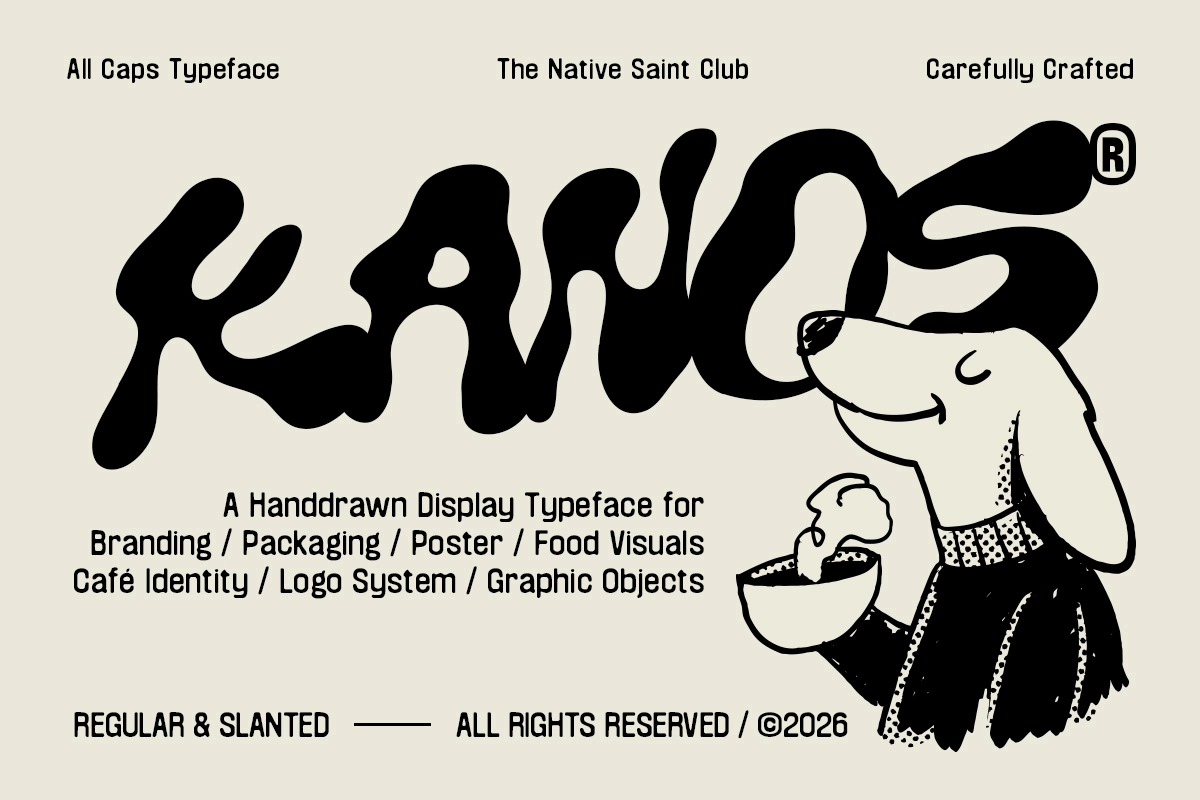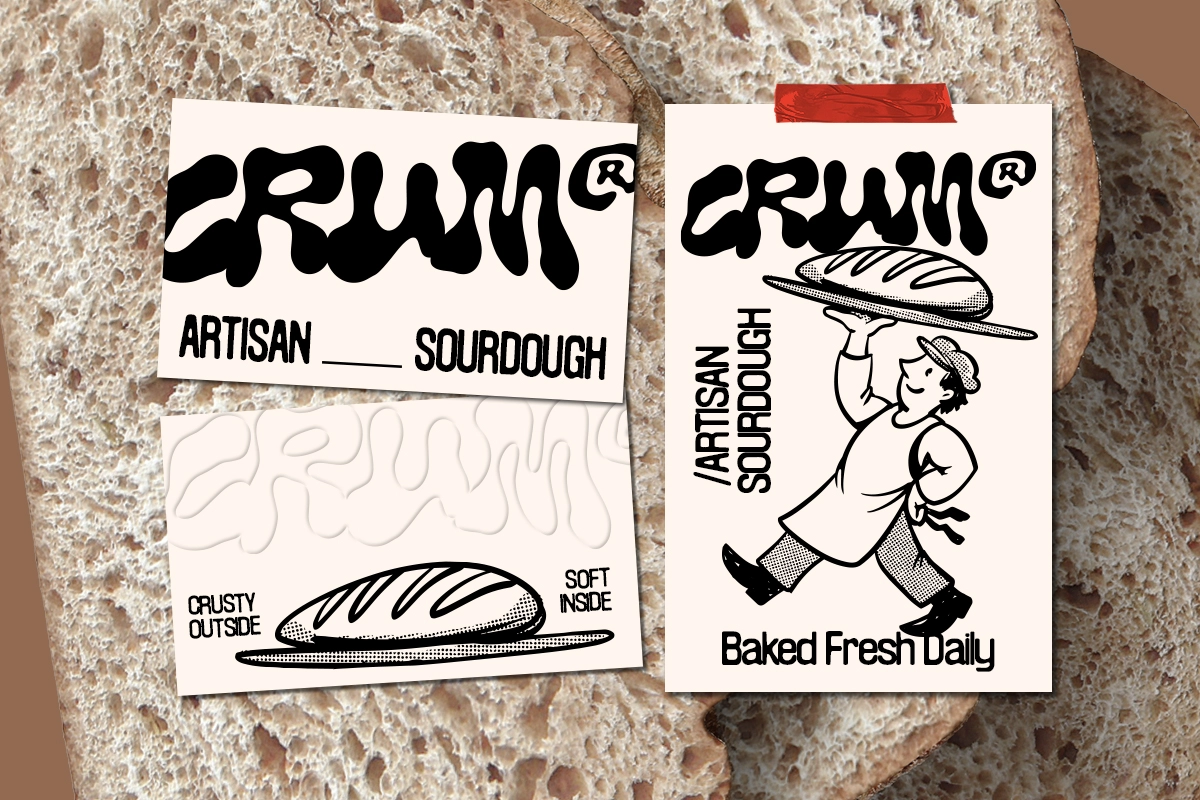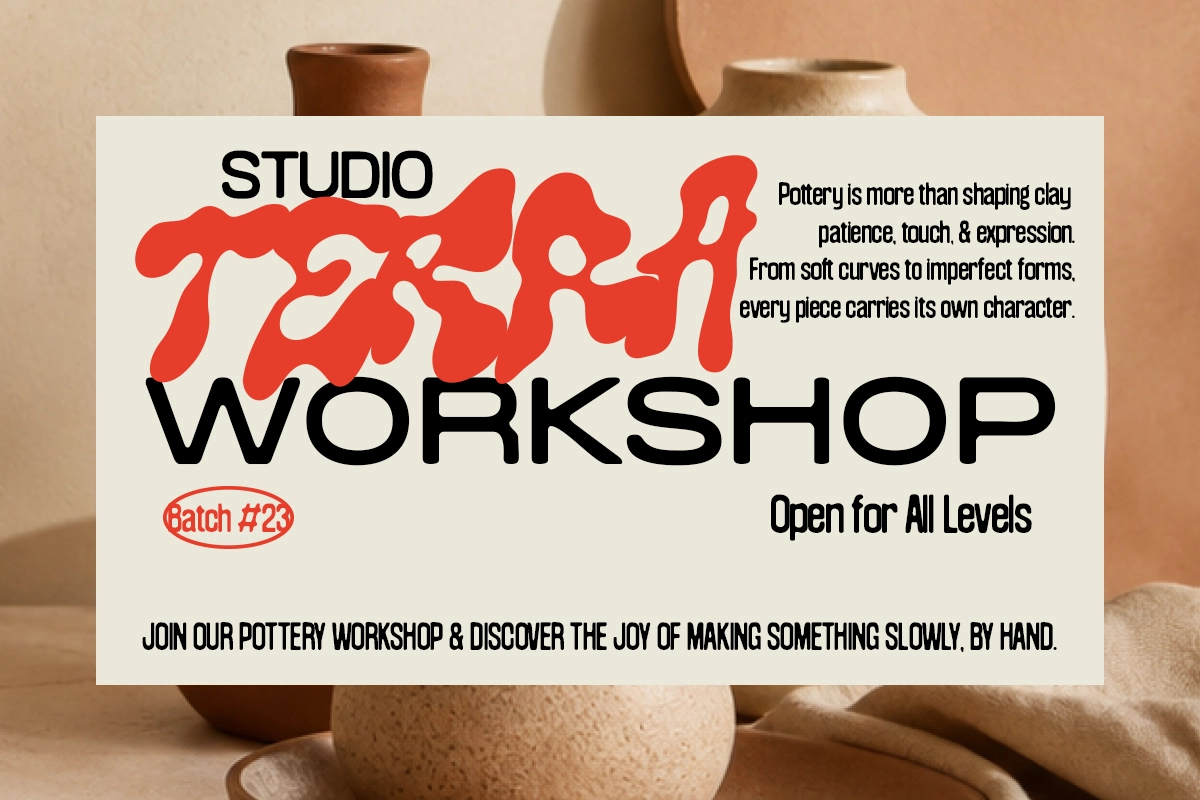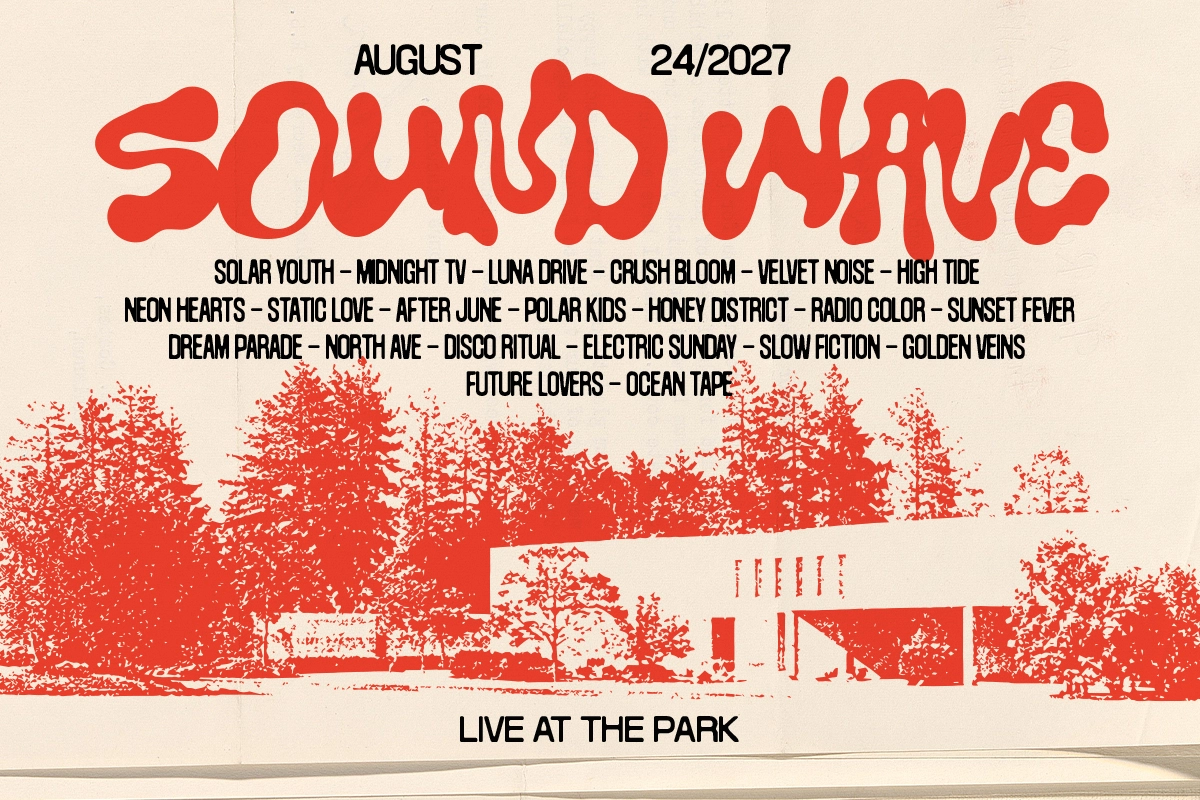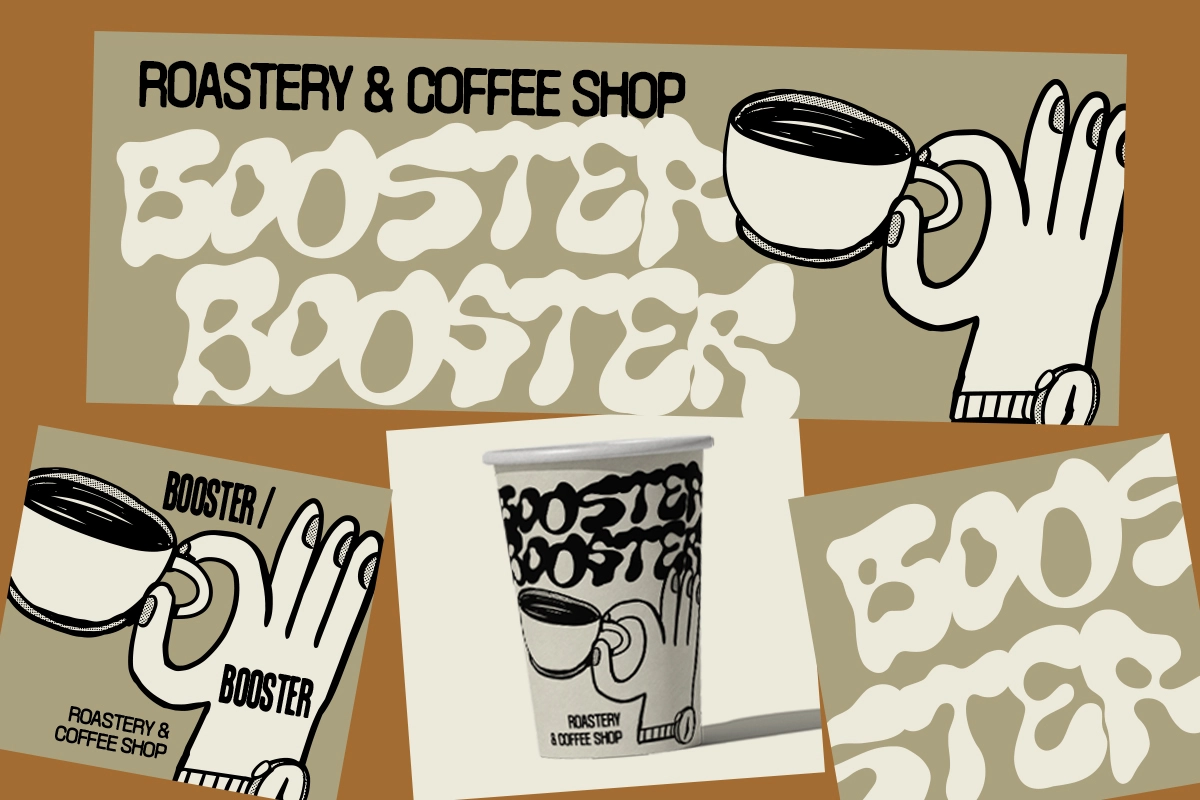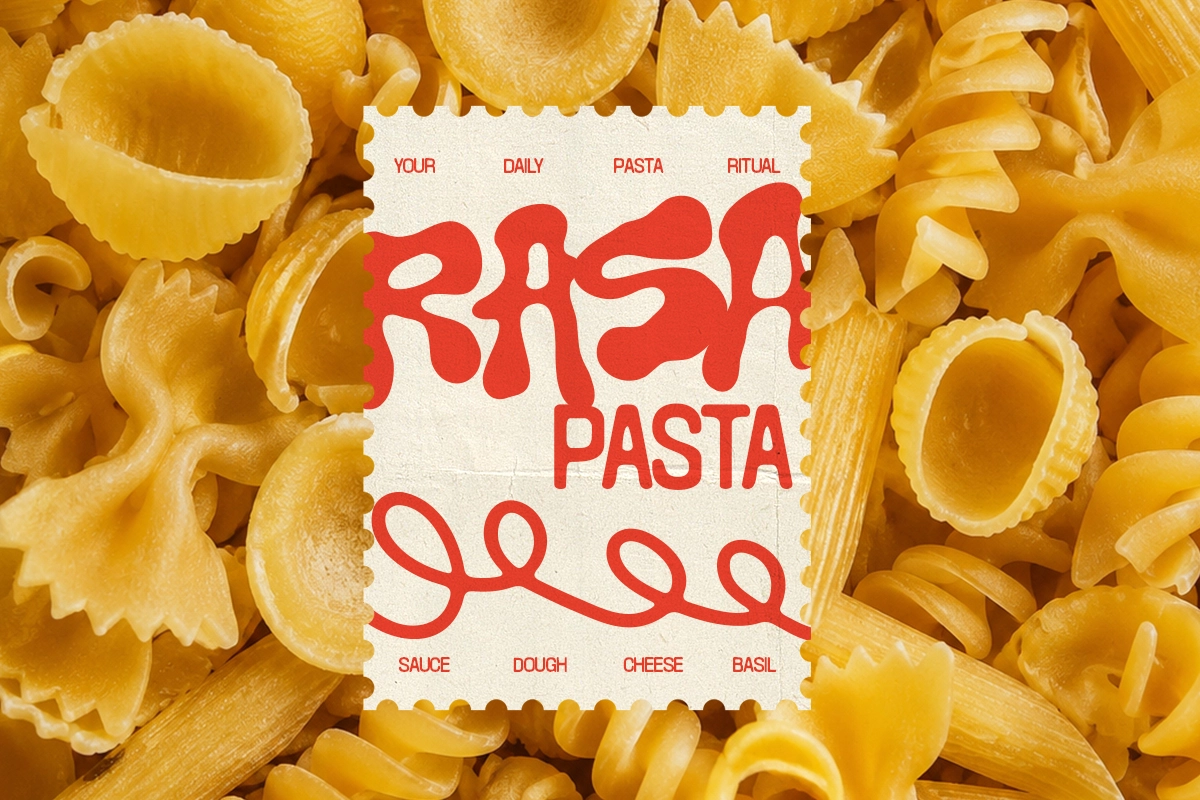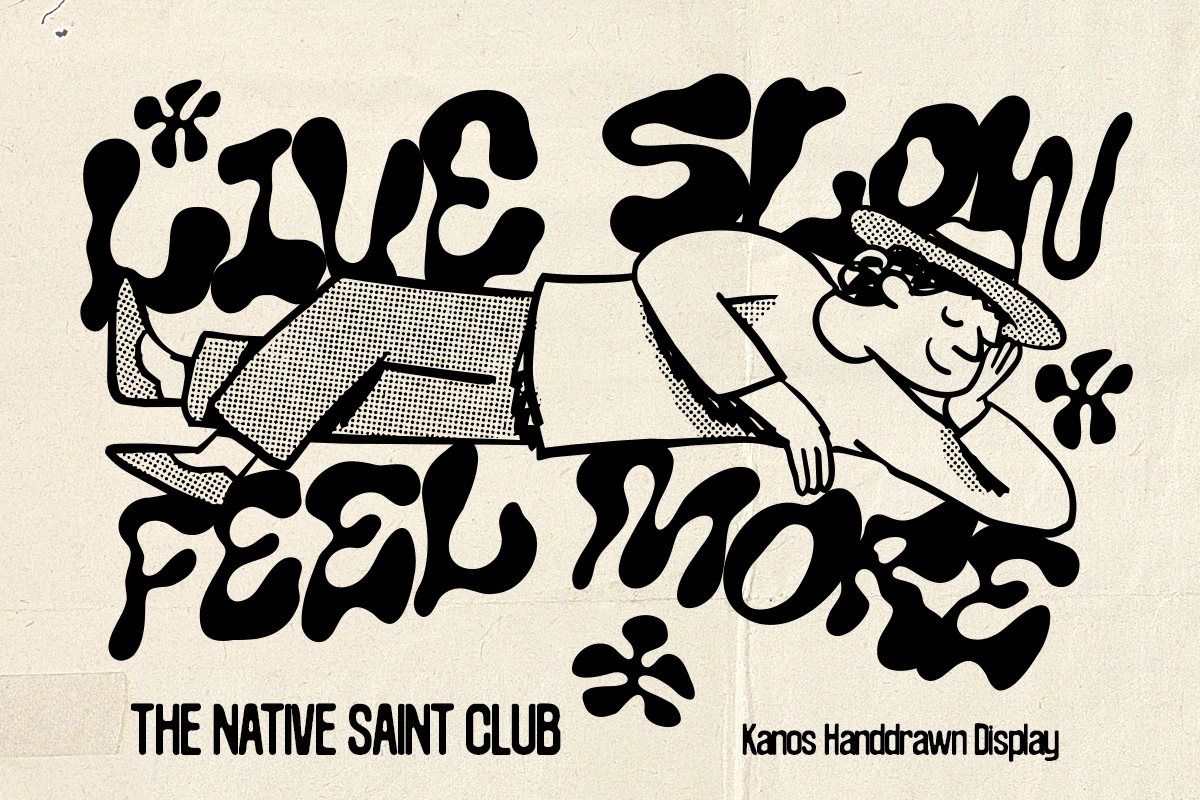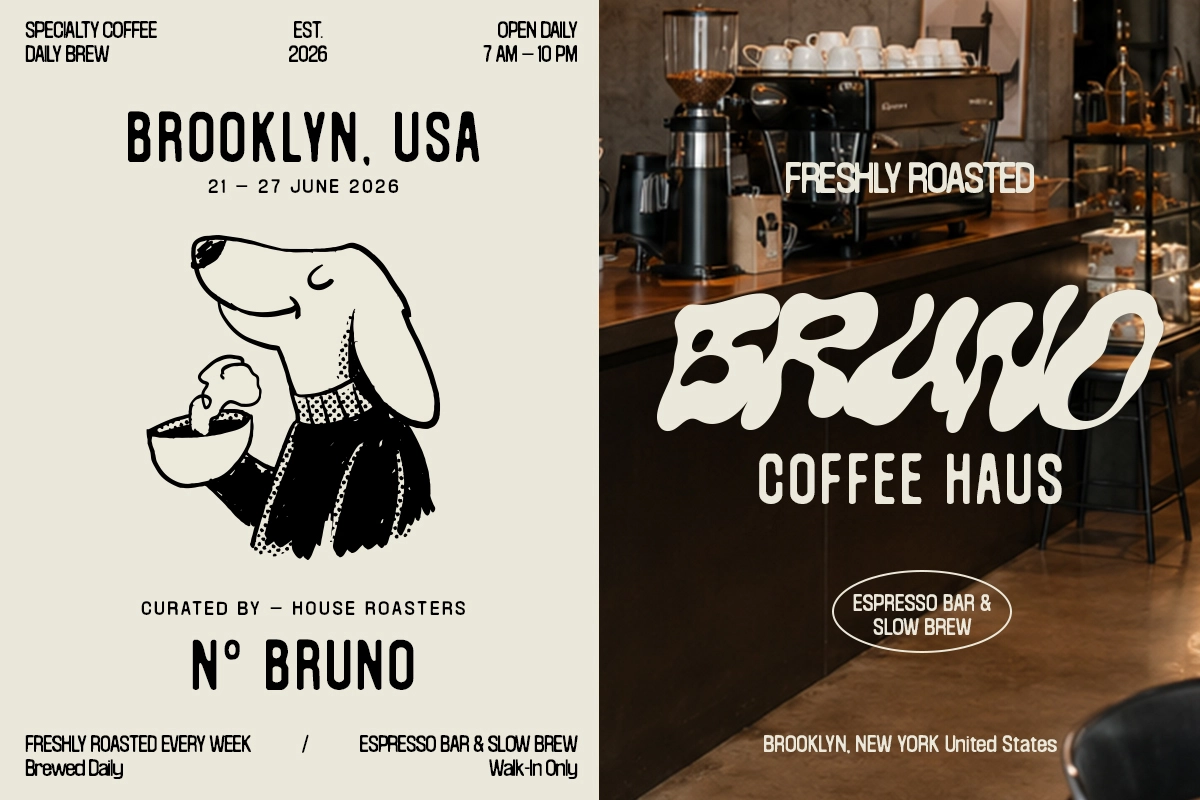
Kanos – Groovy Hand Drawn Display Font
Kanos
Kanos melts every letter into a rounded, bubble-like blob, landing as a groovy hand drawn display font with thick swelling strokes and no sharp corners anywhere in sight. The organic wobble in each curve keeps every word looking loose and hand-inked rather than built from a grid.
The slanted companion pushes the same bubbly letterforms into a forward lean for a bit more motion. Use it for café branding, packaging labels, event posters, and playful logo lockups.